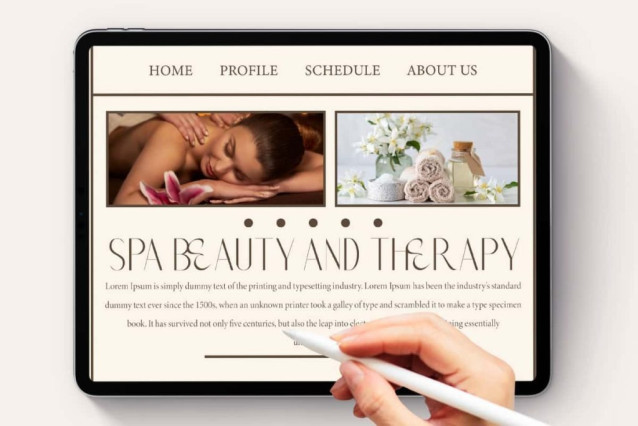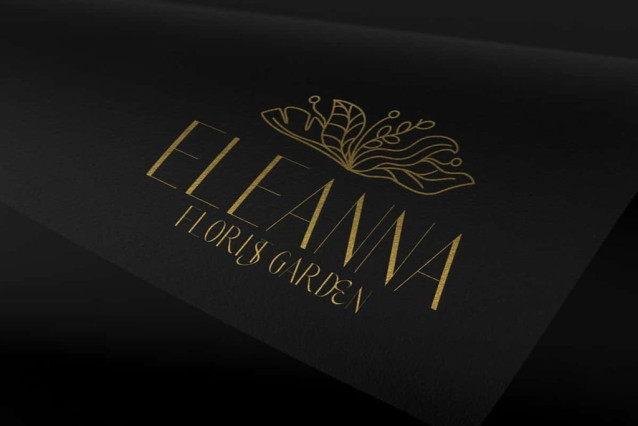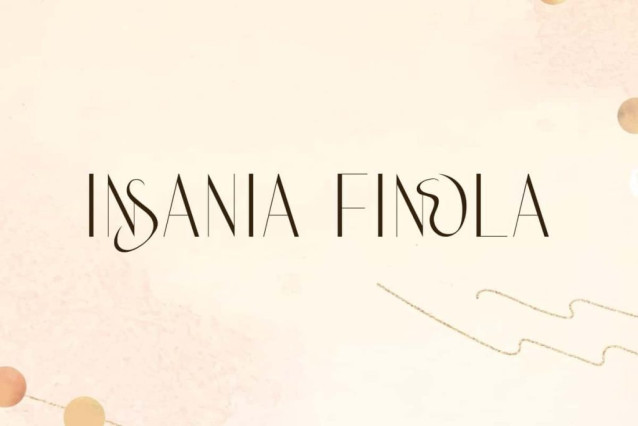
Insania Finola Font
Insania Finola Font is a sleek sans serif font that blends modern and vintage decorative elements, offering an exclusive feel through its elegant letterforms and artistic curve variations. Perfect for art typography, banners, blogs, branding logo, business card, mockup, product packaging, template, website and etc.
Insania Finola Font includes full set of Uppercase and Lowercase Basic Characters, Number, Punctuation, Symbol, and Ligature. It’s minimalist, but the details make it lively. Perfect for accessories and gift, art galleries, authors, books, clothing, cosmetics, events, florist, furniture, photography, restaurants, spa salons, and more.